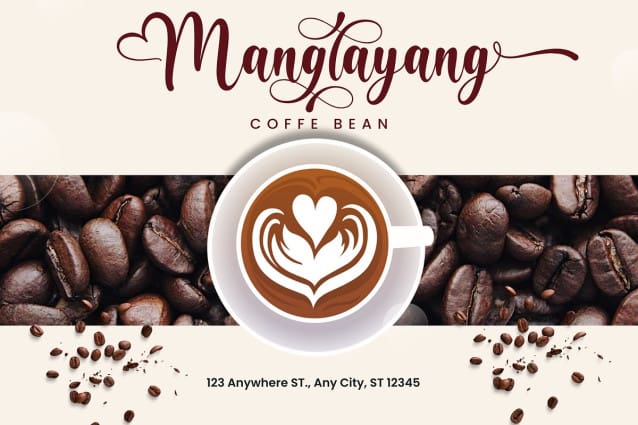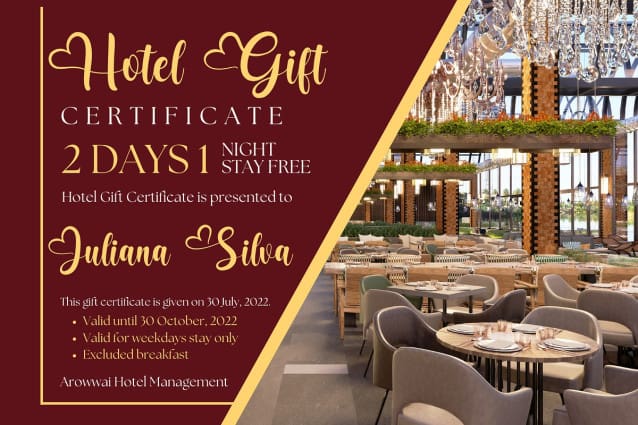
Arialesa Handlettering Font
Arialesa Handlettering Font, made with Naturaly & Clean Style. This Font is perfect for an elegant & luxury logo, book or movie title design, fashion brand, magazine, clothes, lettering, quotes, and so much more. This font is PUA encoded, which means you can access all of the glyphs and swashes with ease!